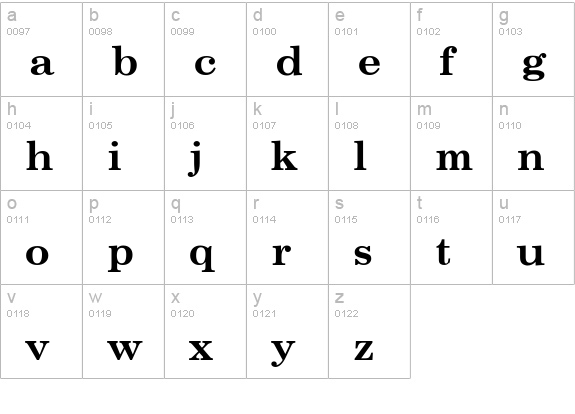
Century-Schoolbook Font Details
Century-Schoolbook is a classic and timeless serif font that exudes elegance and sophistication. Its clean lines and balanced proportions make it ideal for a wide range of design projects, from elegant invitations to professional documents. The graceful curves and sturdy serifs of Century-Schoolbook give it a sense of authority and tradition, making it a popular choice for academic publications, legal documents, and other formal settings. What sets Century-Schoolbook apart is its versatility - it can be used for both body text and headlines, providing a harmonious and cohesive look across all your design elements. Whether you're creating a magazine layout, designing a website, or crafting a corporate identity, Century-Schoolbook is sure to add a touch of refinement to your project. And the best part? Century-Schoolbook is available for free download at FontsMarket.com, making it accessible to designers and enthusiasts of all skill levels. So why wait? Add this timeless font to your collection today and elevate your designs with the classic elegance of Century-Schoolbook.